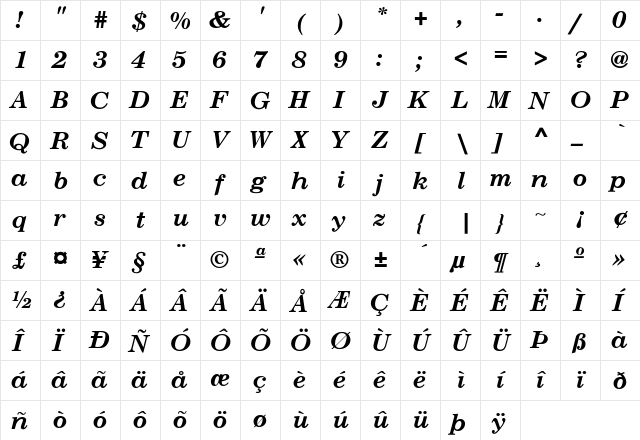
BackRoad Bold Italic Regular
Design Context for BackRoad Bold Italic Typeface
BackRoad Bold Italic takes a measured approach to typography — its balanced proportions and neutral character make it a reliable workhorse for both digital and print work. Its italic angle brings a sense of urgency and motion to the letterforms. Its bold stroke weight gives it real presence on the page.